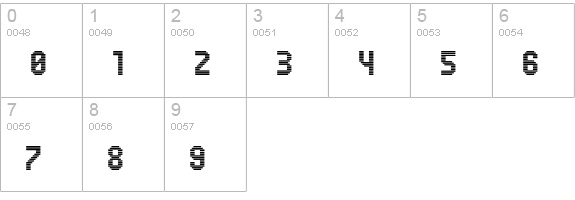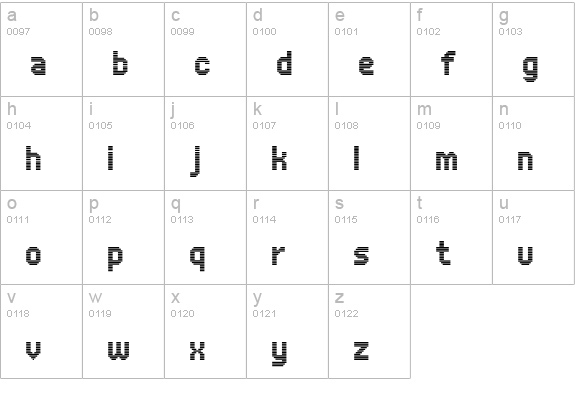
UNDA-Horizontal Font Details
UNDA-Horizontal font is a stunning and versatile typeface that will captivate your audience with its modern and sleek design. With its clean lines and elegant curves, this font is perfect for a wide range of projects, from branding and logo design to website headers and advertising materials. What sets UNDA-Horizontal font apart is not only its remarkable aesthetics but also its accessibility. It is freely available to download at FontsMarket.com, allowing designers and creatives to unleash their creativity without any constraints or limitations. Whether you are a professional designer or an amateur enthusiast, this font provides you with the opportunity to elevate your projects to new heights. The versatility of UNDA-Horizontal font is evident in its ability to adapt to various design styles and contexts. Its horizontal orientation adds a unique and distinctive touch, making it ideal for creating eye-catching headlines and attention-grabbing typography. The font's bold and assertive presence ensures that your message will be conveyed with confidence and impact. In addition to its visual appeal, UNDA-Horizontal font also excels in legibility, ensuring that your text remains clear and readable even at smaller sizes. This makes it perfect for both print and digital applications, enabling you to maintain consistency across different mediums. Whether you are designing a sleek and modern website, a striking poster, or an elegant invitation, UNDA-Horizontal font is the perfect choice to bring your vision to life. Its free availability at FontsMarket.com makes it accessible to all, allowing you to enhance your designs without breaking the bank. So why wait? Download UNDA-Horizontal font today and embark on a creative journey that knows no bounds.